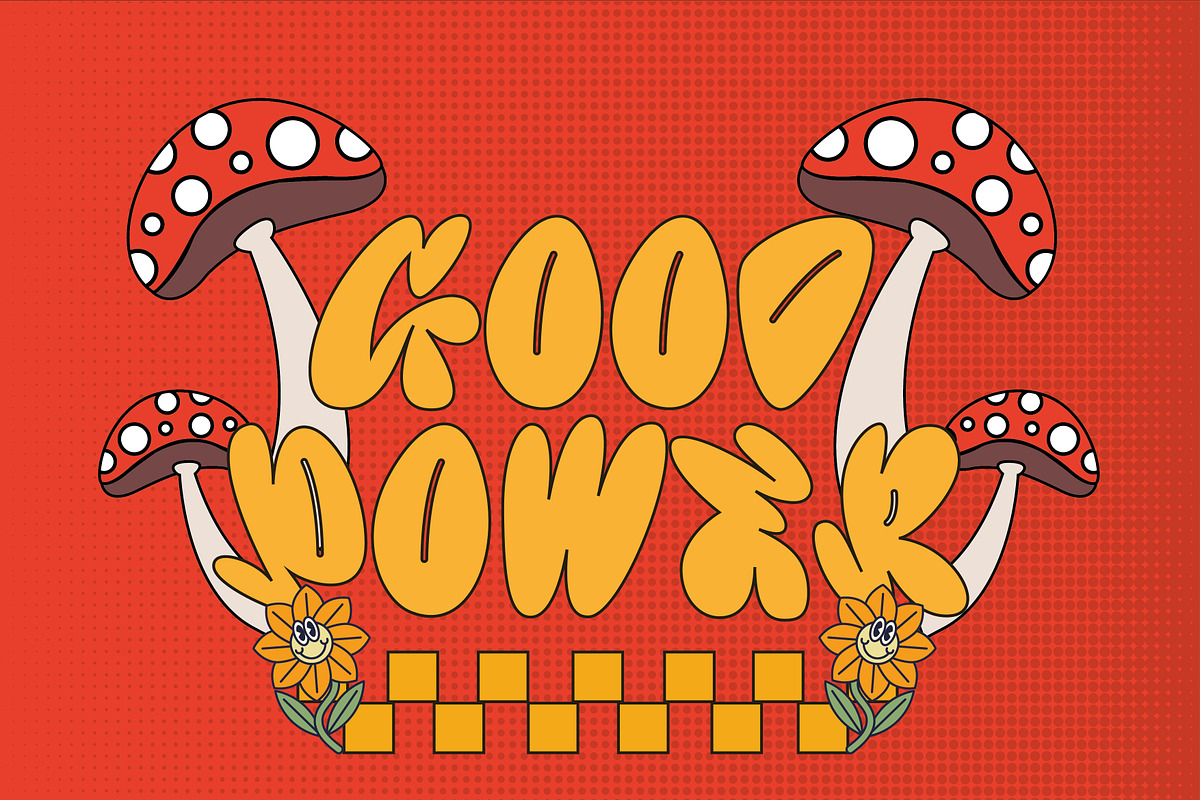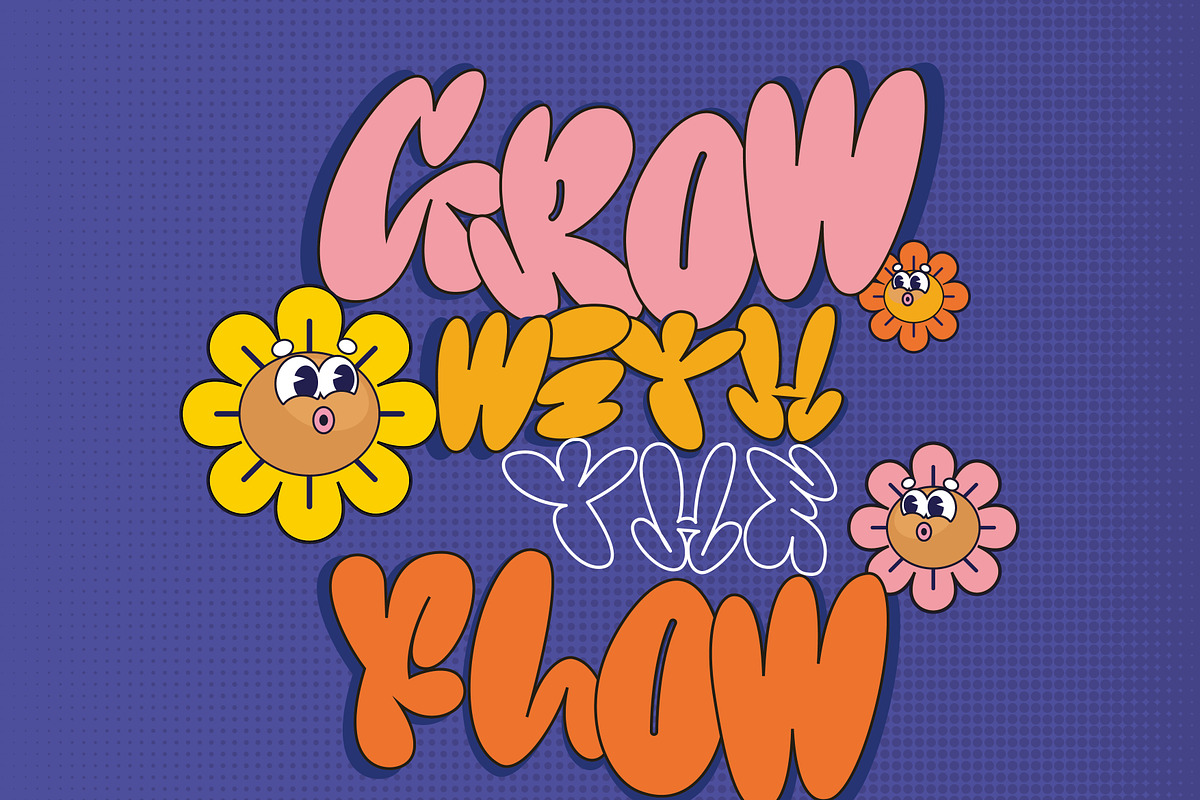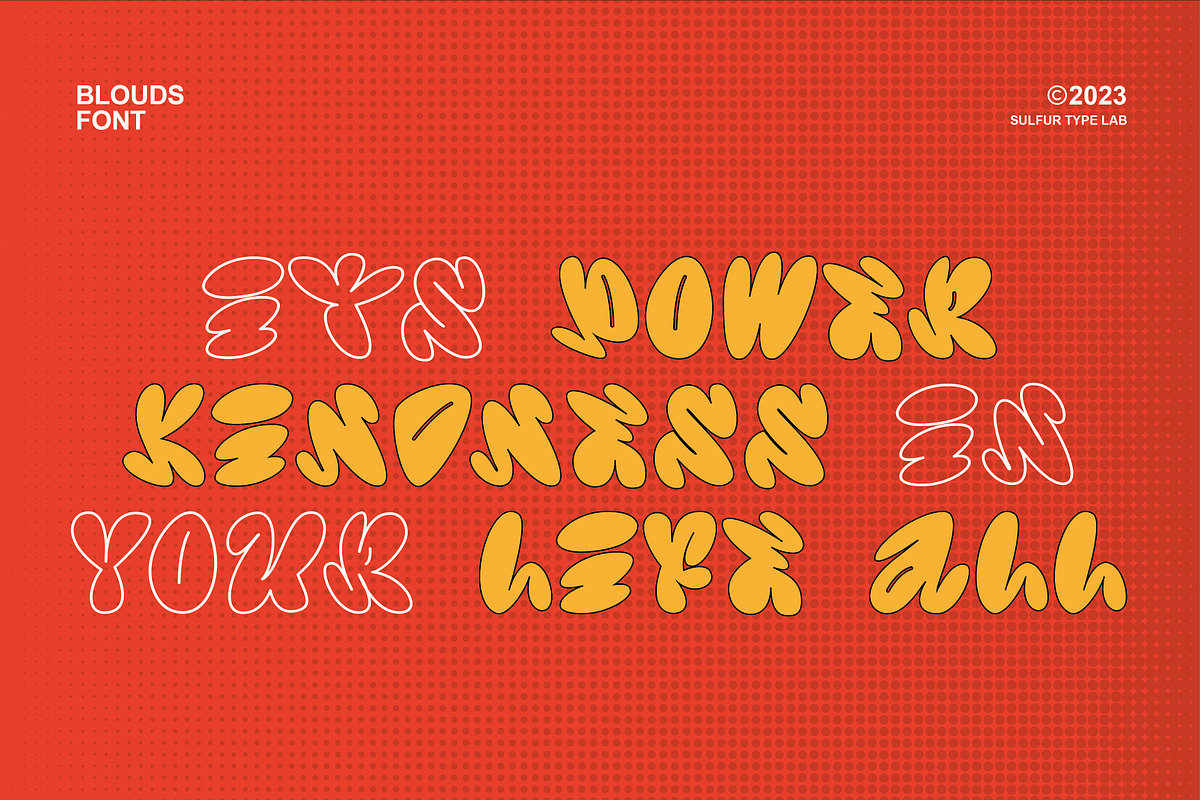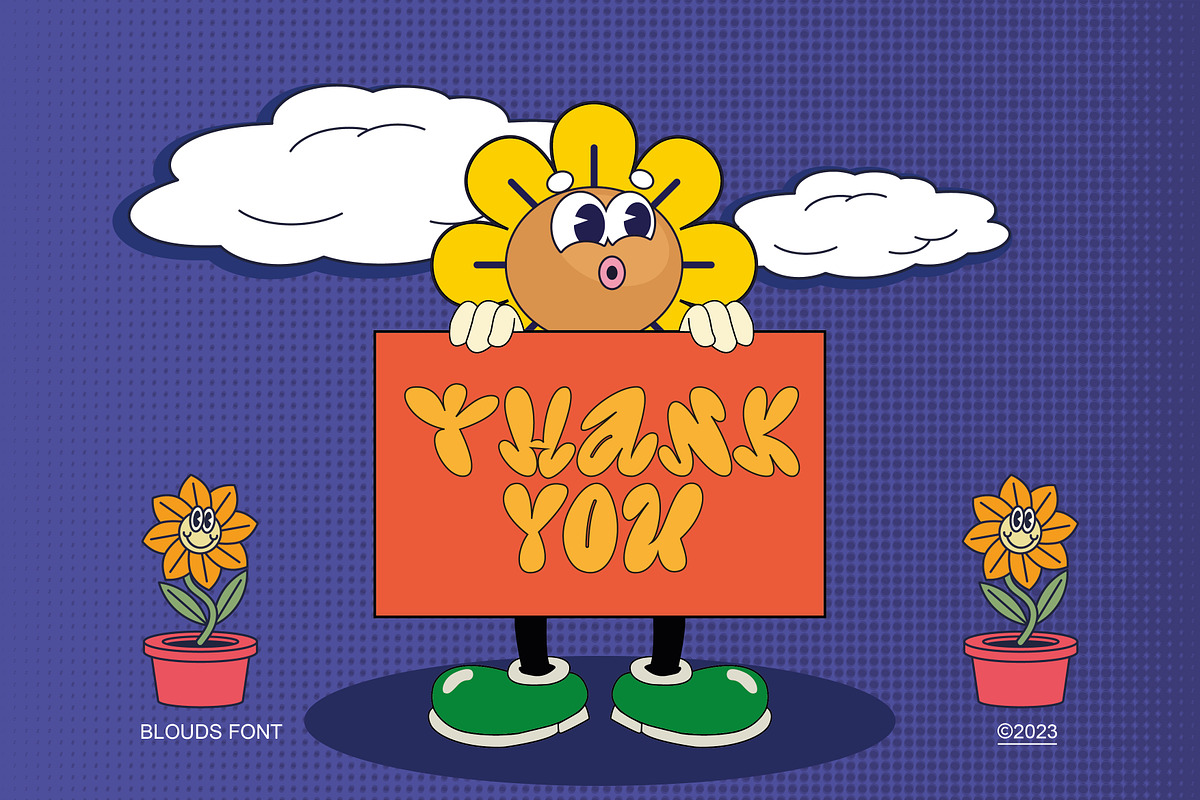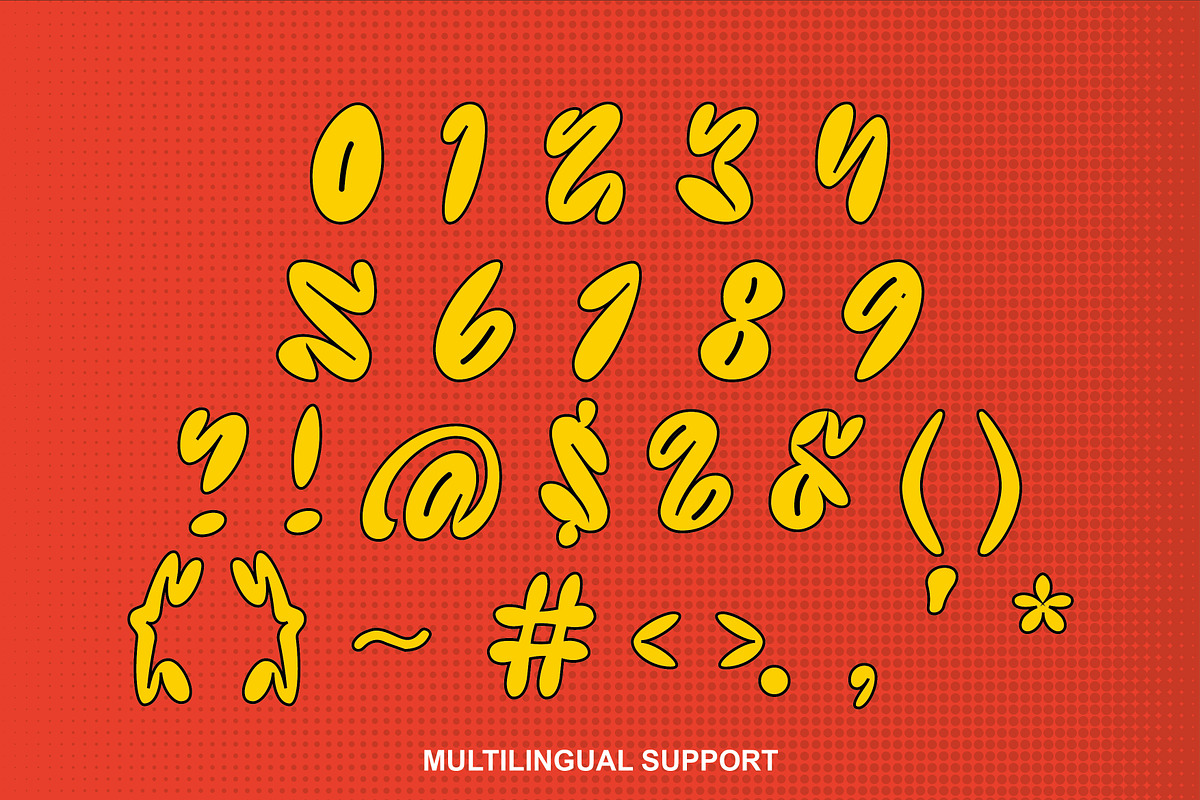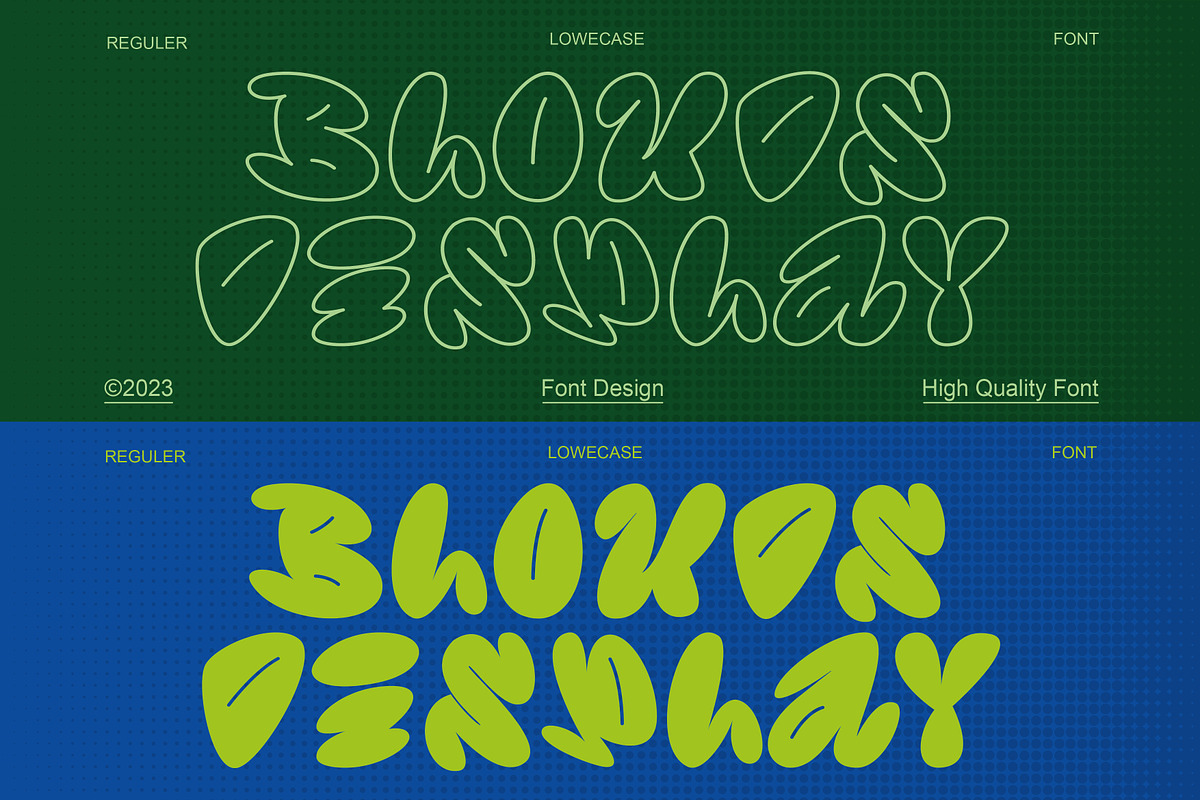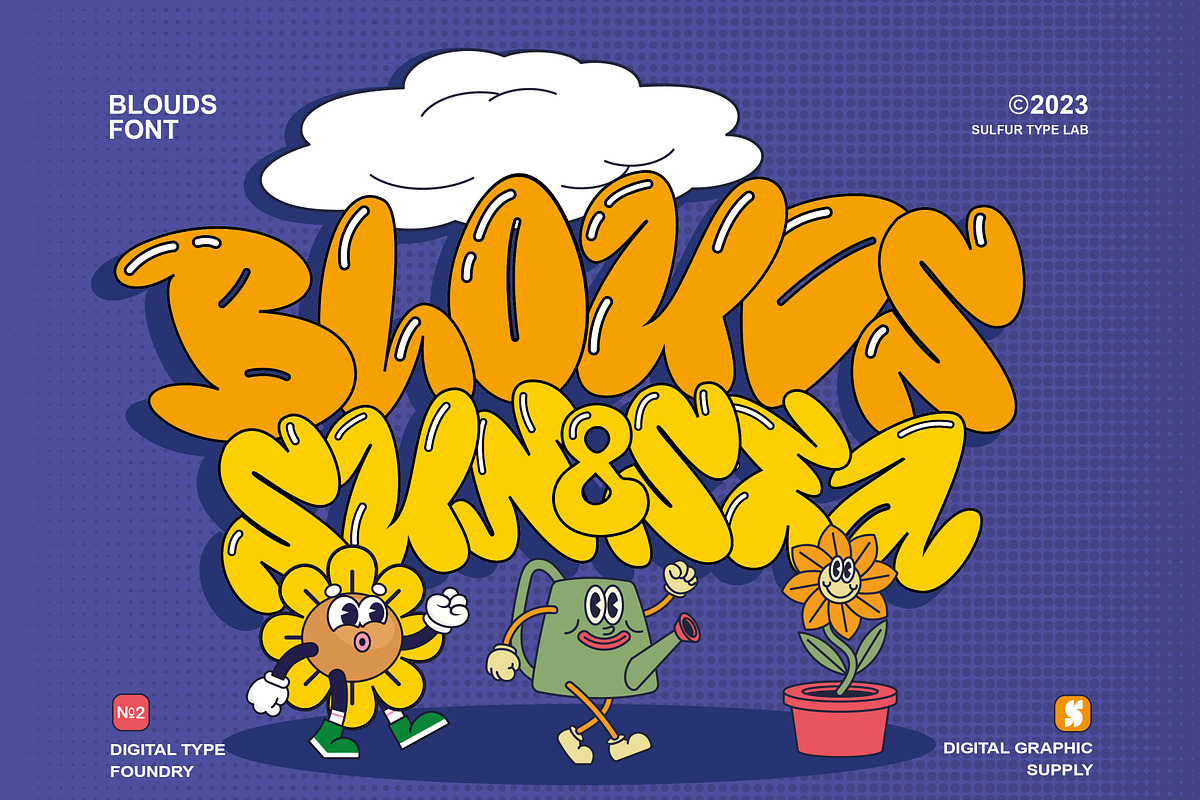
STL Blouds
This is a handwritten font I created in a bubble style. Looks great for merchandise, logos, posters, art, signs, titles, and handmade touches. Enjoy!